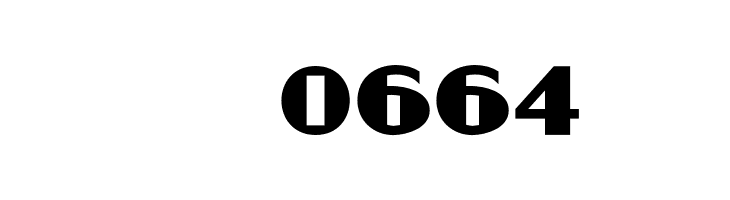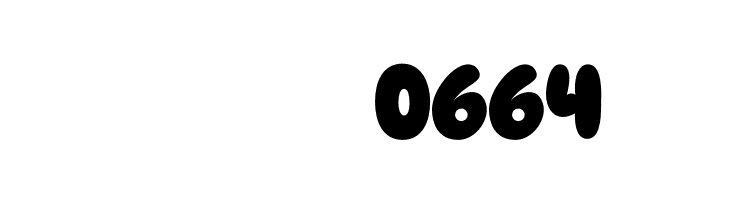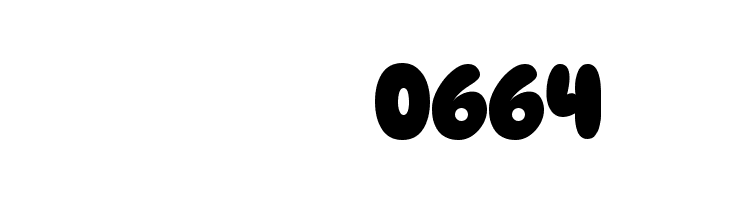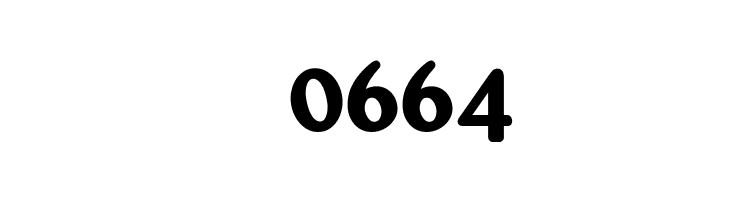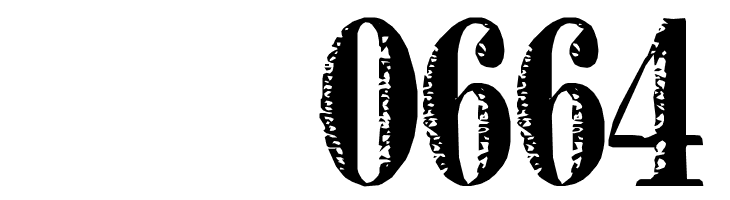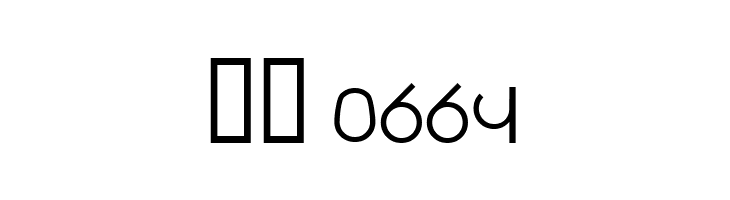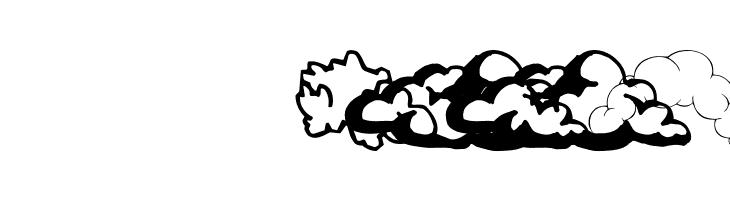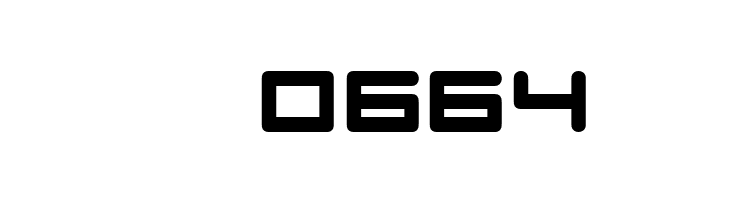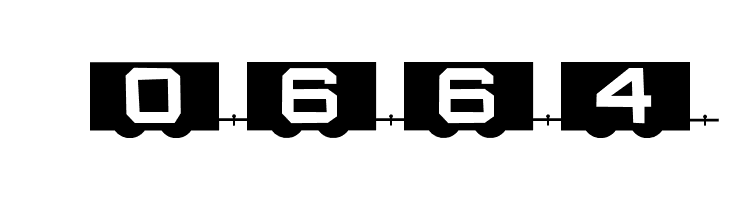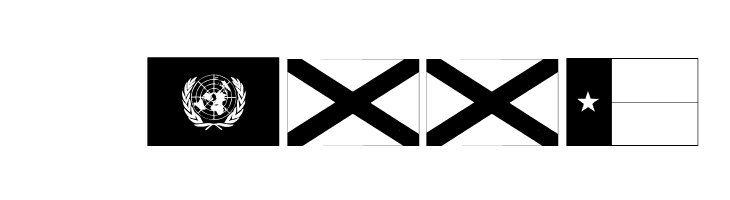
An elegant and ornate script font with intricate swirls and flourishes.
A bold, geometric font with Art Deco influences, perfect for stylish and modern designs.
A bold, vintage-inspired serif font with sharp serifs and a commanding presence.
A geometric, futuristic font with blocky, angular letterforms.
A bold, geometric font with uniform strokes and strong visual impact.
A bold, vintage-style font with high contrast and sharp serifs.
A bold, dynamic handwritten font with brush-like strokes and a casual, energetic style.
A dynamic and fluid script font with elegant, handwritten characteristics.
An ornate, decorative font with intricate detailing and a vintage aesthetic.
A bold, retro-inspired serif font with rounded characters and a playful vibe.
A bold, playful serif font with rounded serifs and a whimsical style.
A playful, train-themed decorative font with bold, uniform characters.
A bold, handwritten-style font with thick strokes and smooth curves.
A bold, decorative font with rounded terminals and a vintage railway-inspired style.
A bold, hand-drawn font with a textured, rustic appearance.
A rugged, hand-drawn font with a textured, distressed appearance.
A playful, bold font with rounded, bubble-like characters and a whimsical style.
A playful, bold font with rounded, bubble-like characters.
A decorative font featuring weather-themed illustrations.
A bold, playful font with rounded, outlined characters.
A playful, cartoonish font with bird-like characters and whimsical elements.
A flag-themed decorative display font with each character as a distinct flag.
A sophisticated script font with elegant, flowing letters and decorative uppercase characters.
A bold, hand-drawn font with a brush-like texture and dynamic style.
A dynamic, brush-stroke font with an energetic and playful style.
A flowing, cursive font with elegant, sweeping strokes.
A dynamic, brush-style font with expressive, hand-drawn strokes.
A dynamic and elegant script font with flowing, cursive letterforms.
A fluid and elegant script font with a modern yet classic appeal.
A bold, playful handwritten font with thick strokes and rounded edges.